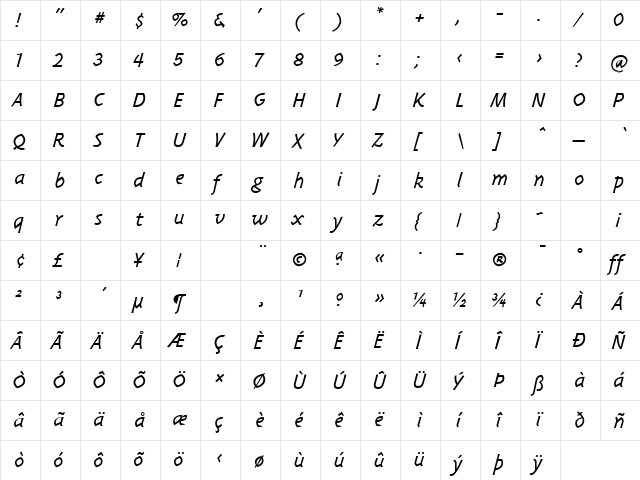
TriplexItalicLightLining Italic Font Preview
Design Context for TriplexItalicLightLining Typeface
TriplexItalicLightLining takes a measured approach to typography — its balanced proportions and neutral character make it a reliable workhorse for both digital and print work. The dynamic lean of this cut emphasises speed and emphasis in any layout. Its slender proportions lend an understated elegance to any composition.